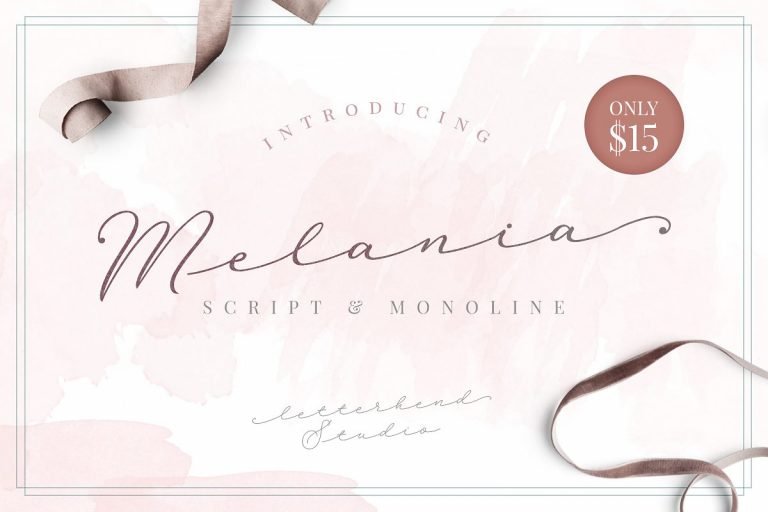
Melania Script Font
Hi designers! A stylish handwritten with signature style! Introducing Melania Font! It is was designed and shares by Letterhend. Melania – a script font that which is created by natural hand writing and gives you the feminine touch that you’ve been looking for. The irregular spacing bring the personal & unique feels which is very suitable for signature, wedding invitation, fashion, headline, quotes, etc. It also comes in uppercase, lowercase, punctuations, symbols & numerals, stylistic set alternate, ligatures, etc also support multilingual.